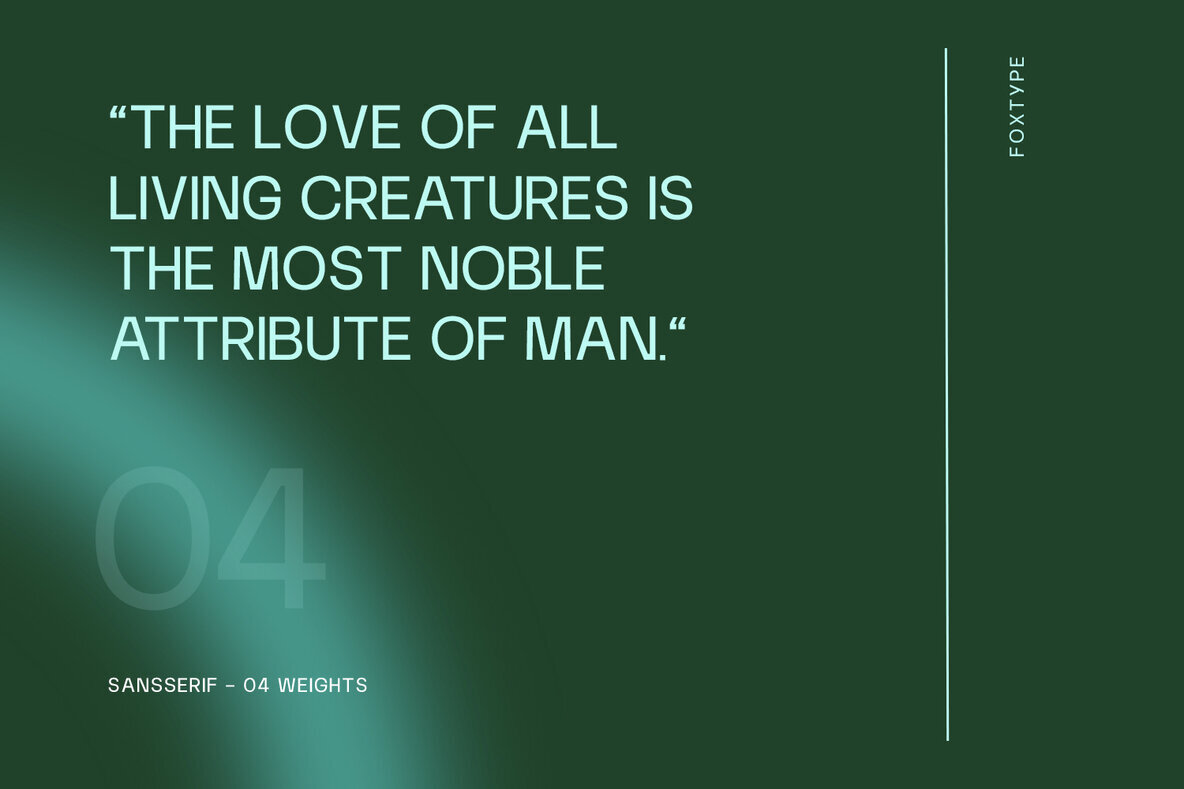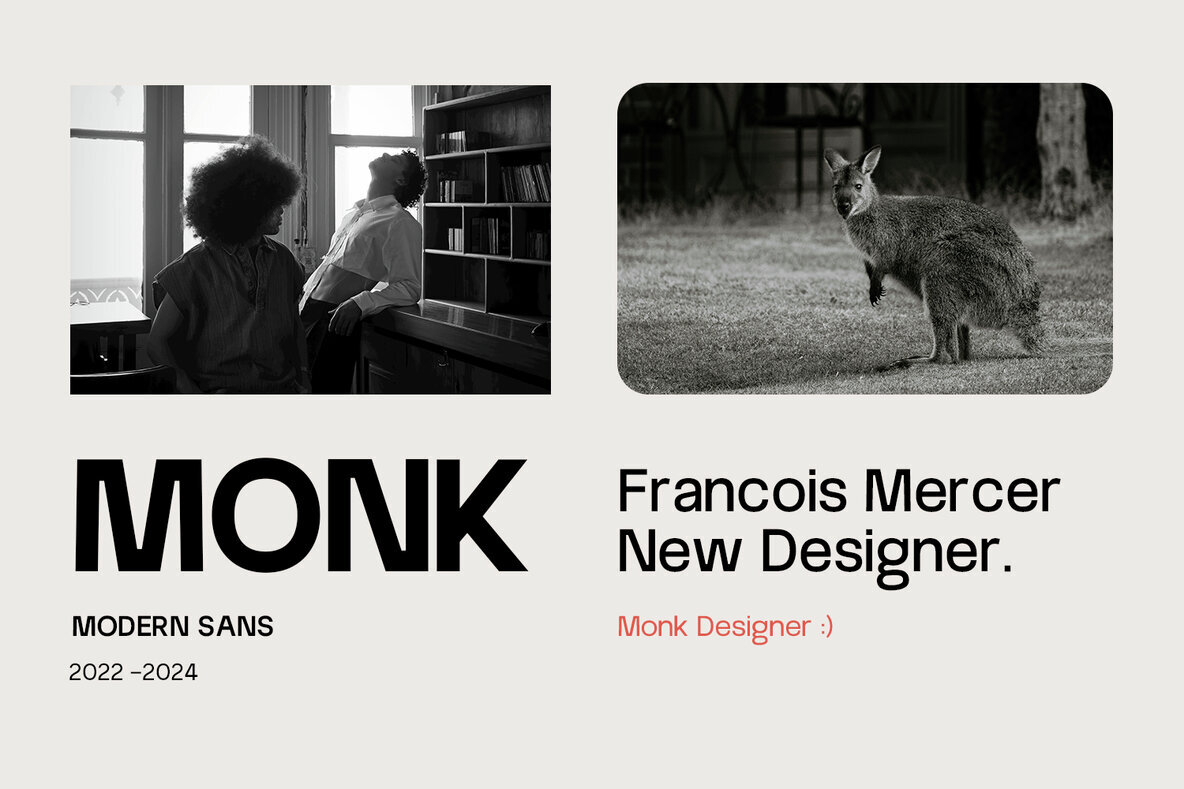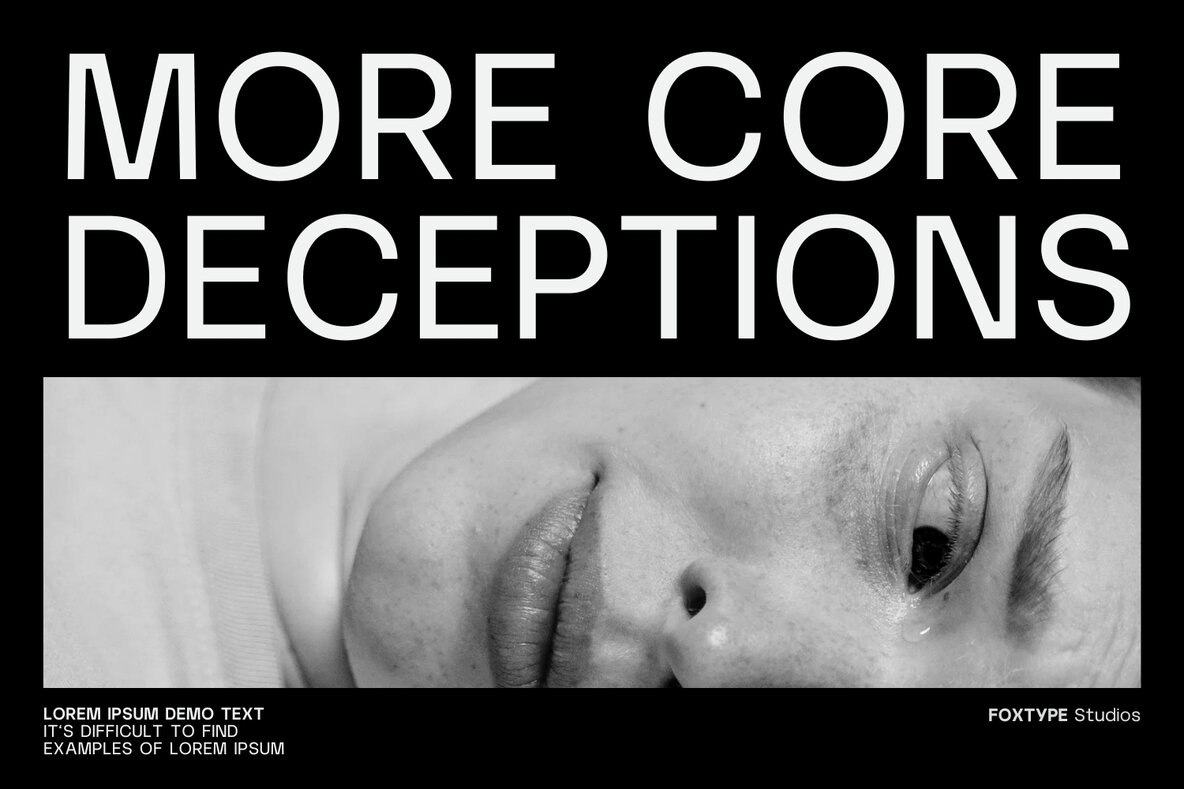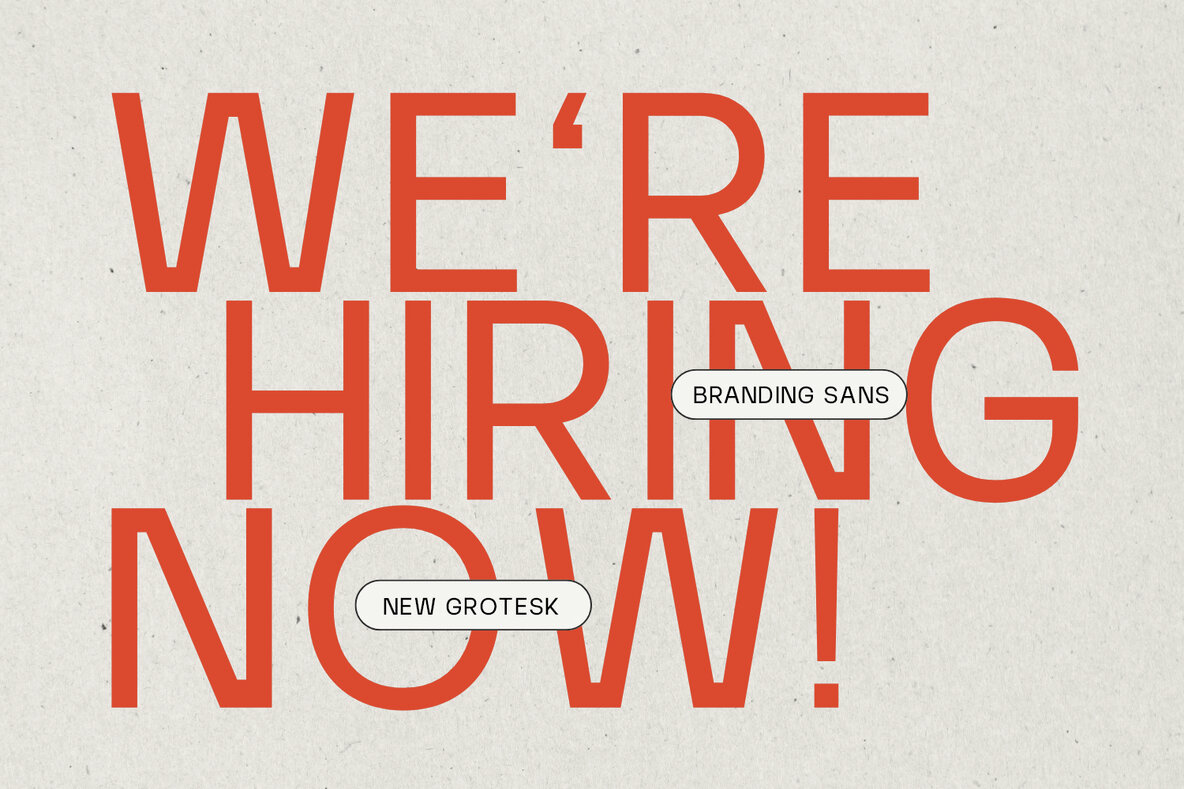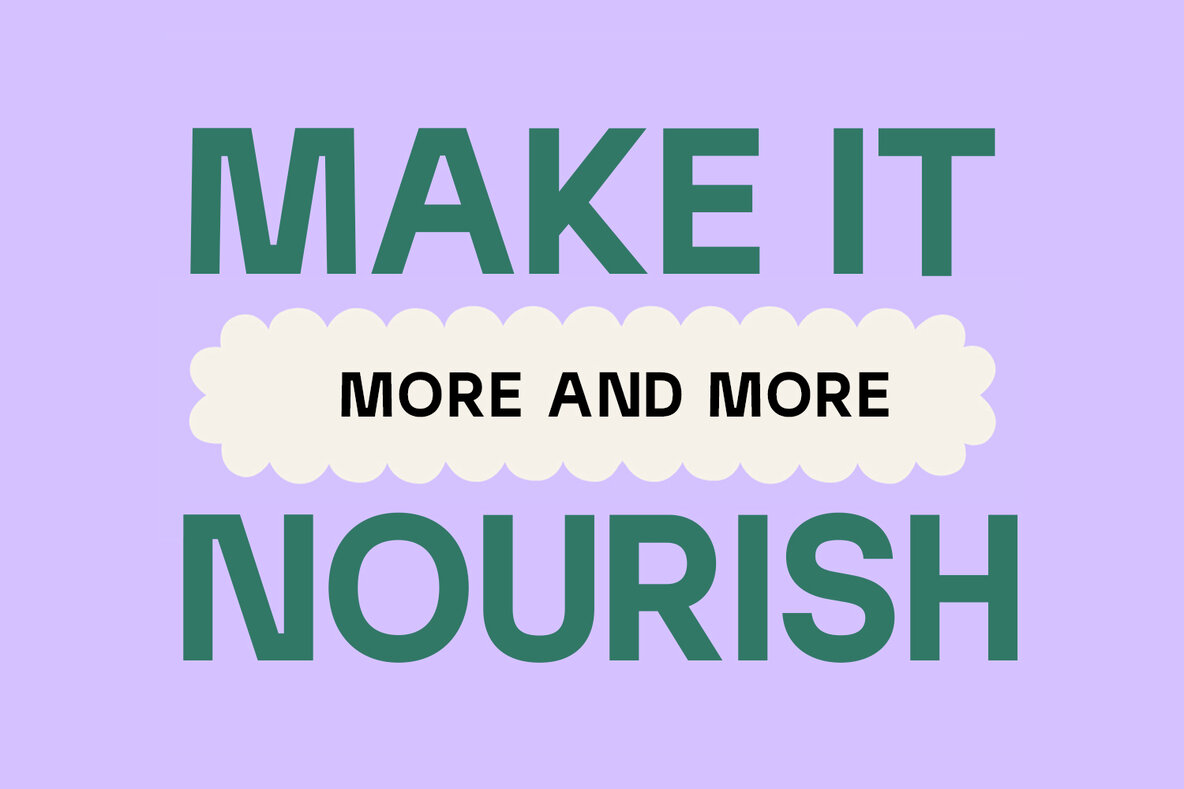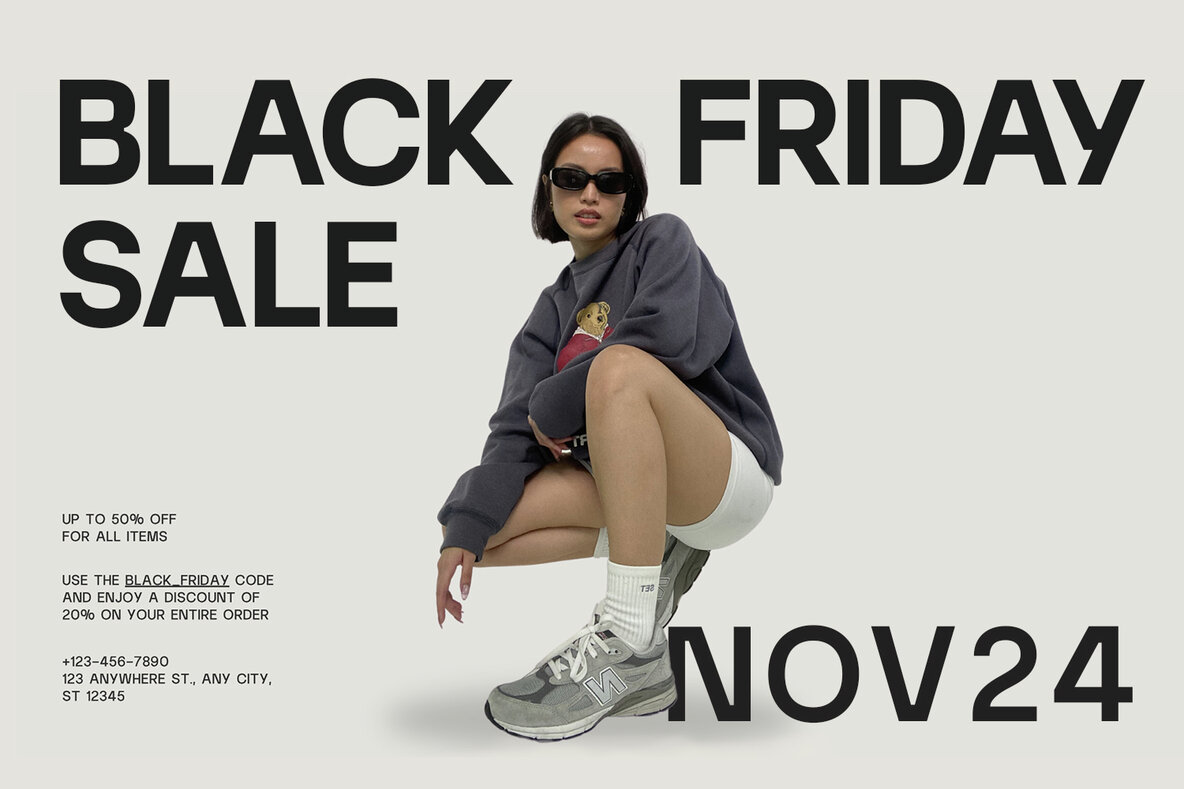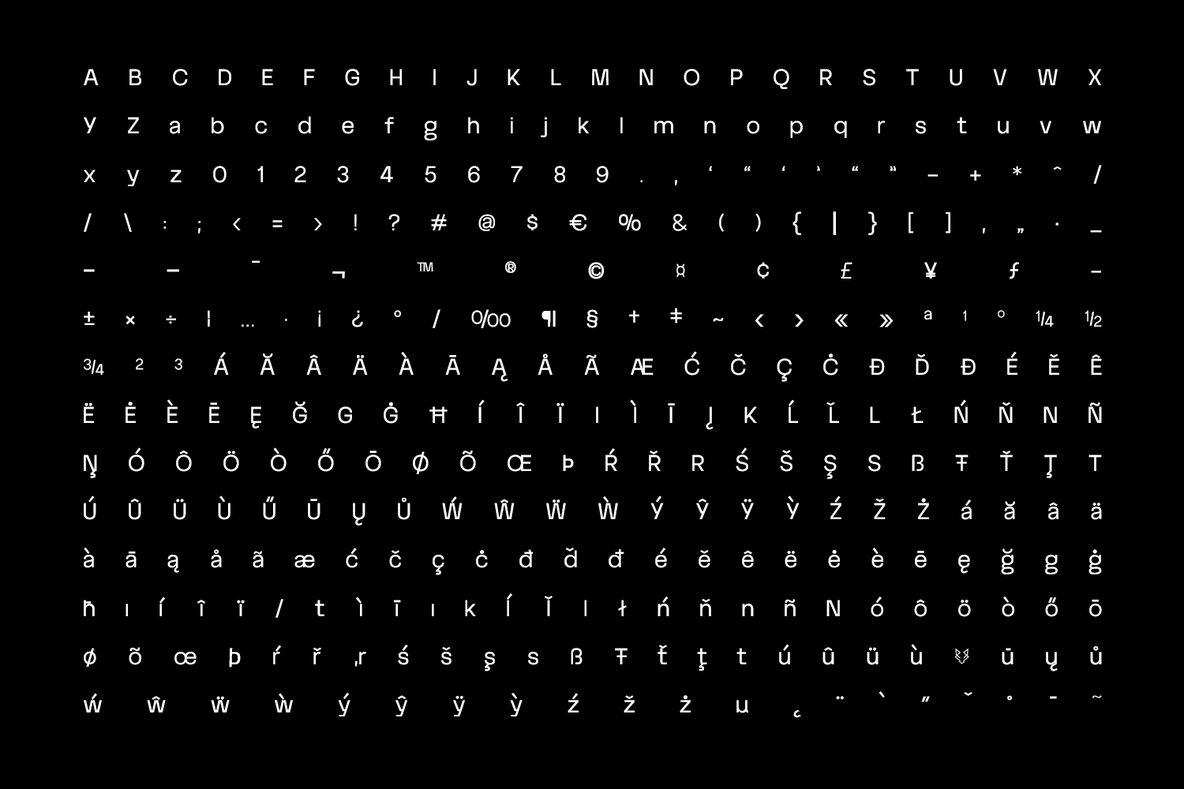
Nortica Grotesk Font
Nortica Grotesk is a meticulously crafted modern sans-serif typeface perfect for a wide range of design projects. With four versatile weights, Nortica excels in creating striking headlines, captivating posters, and sophisticated branding materials. Its clean lines and contemporary style make it an ideal choice for magazine covers, logo designs, paragraph texts, and more.
Nortica's elegant design ensures clarity and readability, making it ideal for both print and digital media. Whether you're designing for editorial layouts or web content, Nortica Grotesk offers the flexibility and visual appeal needed to make your projects stand out.